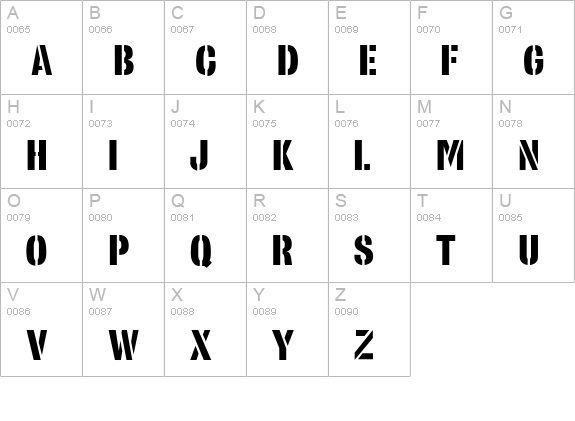
Introducing StencilSans Fed Font, a versatile and modern typeface that exudes a sense of strength and sophistication. This unique font features clean lines and bold stencil-inspired characters that make a powerful statement in any design project. Whether you're creating posters, logos, or branding materials, StencilSans Fed Font is sure to make a lasting impression. What sets StencilSans Fed Font apart is not only its striking design but also its accessibility. This font is available for free download at FontsMarket.com, making it easy for designers of all levels to incorporate this eye-catching typeface into their work. With its timeless aesthetic and effortless readability, StencilSans Fed Font is the perfect choice for projects that demand a touch of elegance and modernity. Don't miss out on the opportunity to elevate your designs with StencilSans Fed Font. Download it for free today and unlock a world of creative possibilities!